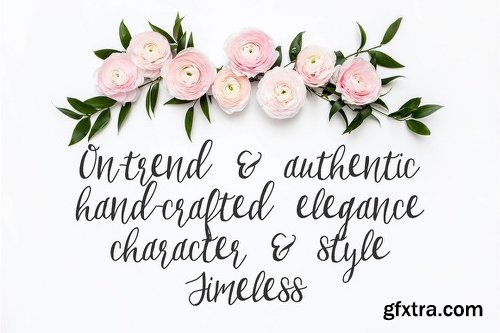
"Birchwood" was completely handwritten in my signature modern calligraphy style. Handcrafted touches make this font the perfect on-trend addition to your products and give pieces a touch of handlettered elegance and style. Perfect for wedding invitations, adding design accents, and giving your projects a coveted hand-crafted look. A .TTF font by Printable Wisdom. No alternates or foreign alphabets (other than ones shown) supported at this time. See glyph map for complete list of available glyphs.